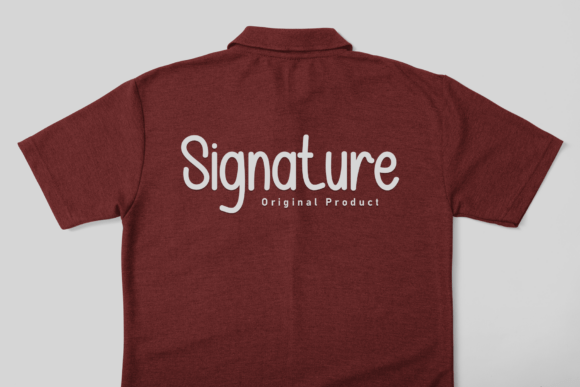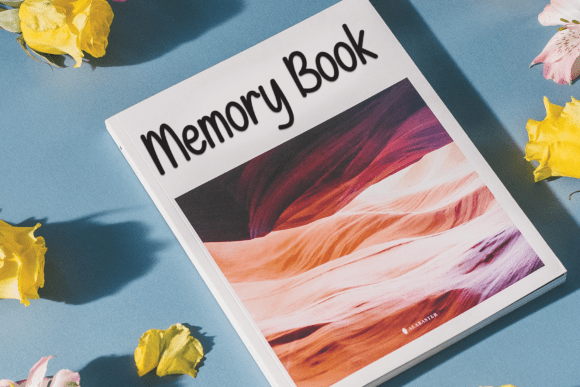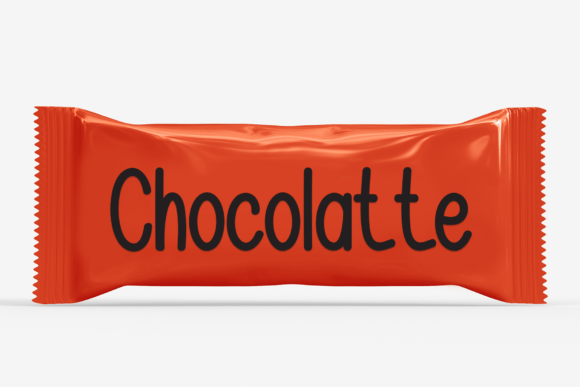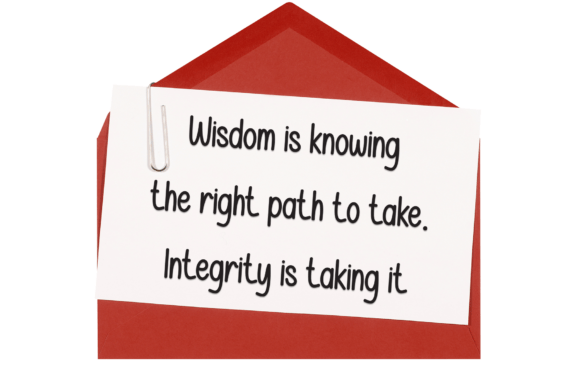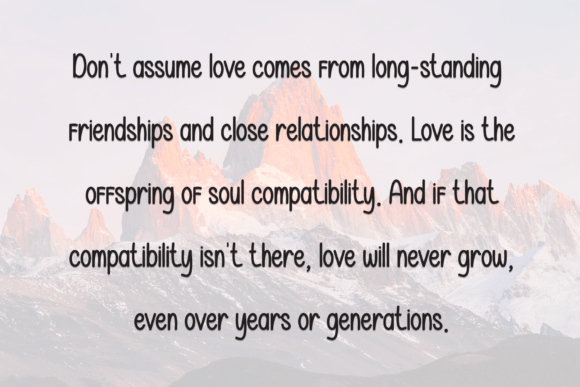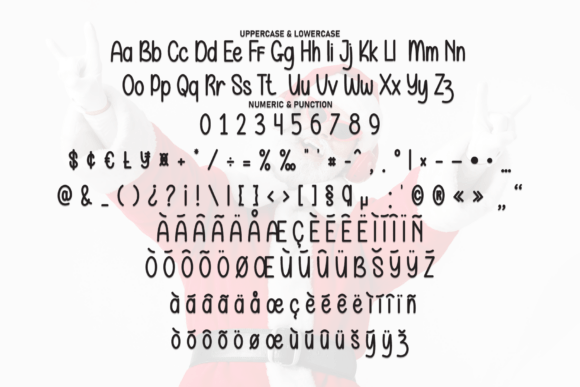
Introducing the Happy Santa Font: A Charming Hand-Scripted Delight
Are you on the hunt for a font that exudes warmth, friendliness, and a dash of whimsy? Look no further than the Happy Santa Font, a captivating hand-scripted typeface that’s sure to bring a smile to your face. With its bewitching design and spirited appeal, this font is the perfect match for creating tender-hearted wedding invites, darling cards, and other design works that yearn for a touch of magic.
The Essence of Happy Santa Font
Presenting a charming, hand-scripted font, brimming with congeniality and light-hearted allure, Happy Santa Font is a true gem in the world of typography. Its unique design effortlessly embodies your sentiment and communicates it with a dash of panache, making it an ideal choice for designers and crafters seeking to add a personal touch to their creations.
Unleash Your Creativity with Happy Santa Font
Whether you’re a seasoned designer or a crafty DIY enthusiast, Happy Santa Font is the perfect companion for your next project. Its unmatchable charm and whimsical appeal make it an excellent choice for:
- Wedding Invitations: Create tender-hearted and romantic wedding invites that set the tone for a joyous celebration.
- Greeting Cards: Design darling cards for special occasions, such as birthdays, anniversaries, and holidays.
- Stationery: Add a touch of whimsy to your stationery, making it perfect for everyday use or special occasions.
- Digital Art: Use Happy Santa Font to add a personal touch to your digital art, illustrations, and graphics.
What Makes Happy Santa Font So Special?
So, what sets Happy Santa Font apart from other fonts? Here are a few reasons why this font has captured the hearts of designers and crafters alike:
- Hand-Scripted: Happy Santa Font is a genuine hand-scripted font, imbuing it with a personal and human touch.
- Unique Design: Its bewitching design and spirited appeal make it a standout in the world of typography.
- Whimsical Appeal: This font effortlessly adds a touch of whimsy and playfulness to any design.
- Easy to Read: Despite its unique design, Happy Santa Font remains easy to read, making it perfect for body text and headings.
Tips for Using Happy Santa Font
To get the most out of Happy Santa Font, here are a few tips to keep in mind:
- Pair with Contrasting Fonts: Combine Happy Santa Font with contrasting fonts to create visual interest and hierarchy.
- Experiment with Colors: Don’t be afraid to experiment with different colors to find the perfect match for your design.
- Use for Headings and Titles: Happy Santa Font is perfect for headings and titles, adding a touch of whimsy and personality to your design.
In conclusion, Happy Santa Font is a charming hand-scripted font that’s sure to bring a touch of magic to your designs. With its unique design, whimsical appeal, and unmatchable charm, this font is perfect for designers and crafters seeking to add a personal touch to their creations. Whether you’re creating wedding invites, greeting cards, or digital art, Happy Santa Font is the perfect companion for your next project.
Get Ready to Fall in Love with Happy Santa Font
So, what are you waiting for? Dive into the enchanting world of Happy Santa Font and discover a font that will capture your heart and inspire your creativity. With its delightful design and whimsical appeal, this font is sure to become a favorite in your typography collection.